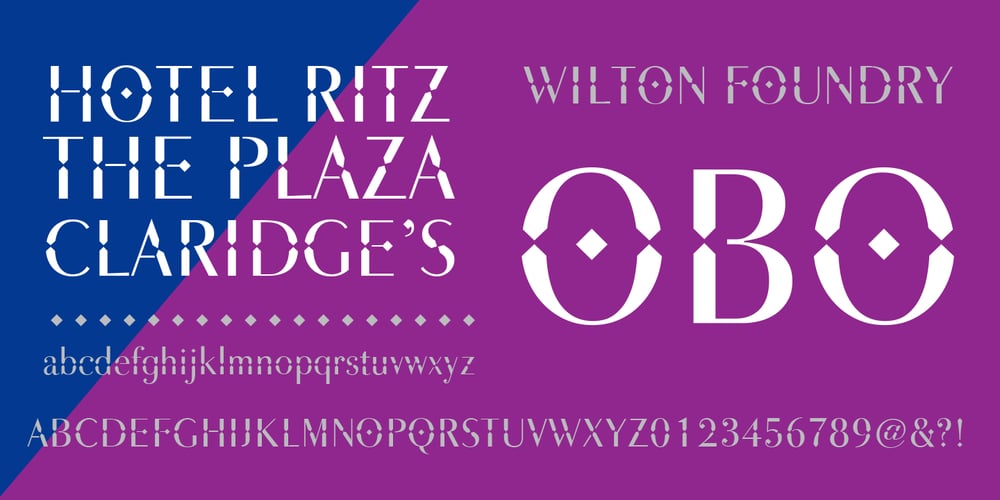
OBO Regular
OBO Regular font
OBO Regular Font Family was designed by Robbie de Villiers and published by Wilton Foundry. OBO Regular contains 1 styles and family package options. OBO is a modern interpretation of the classical Italian letterforms with the readability of contemporary sans typefaces. OBO is ideally suited for creating identities for branding, posters, book covers, headlines, logotypes, restaurant menus, beer labels.